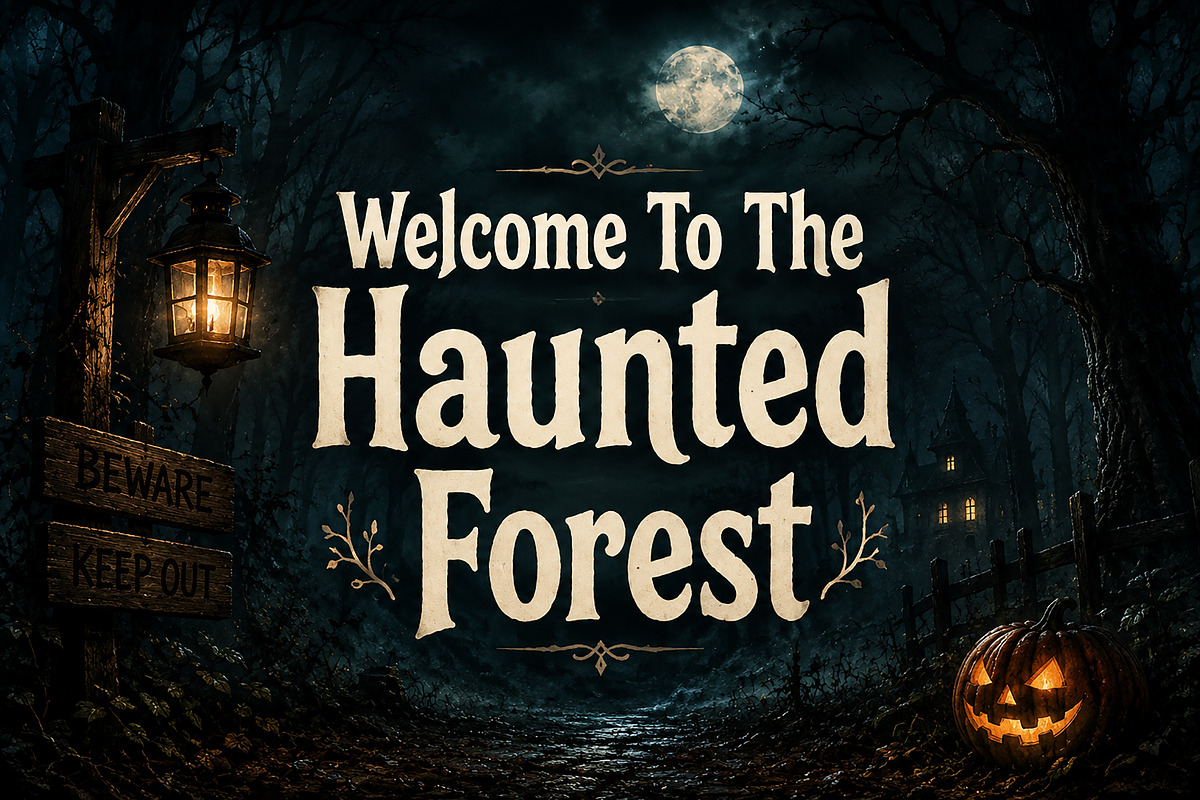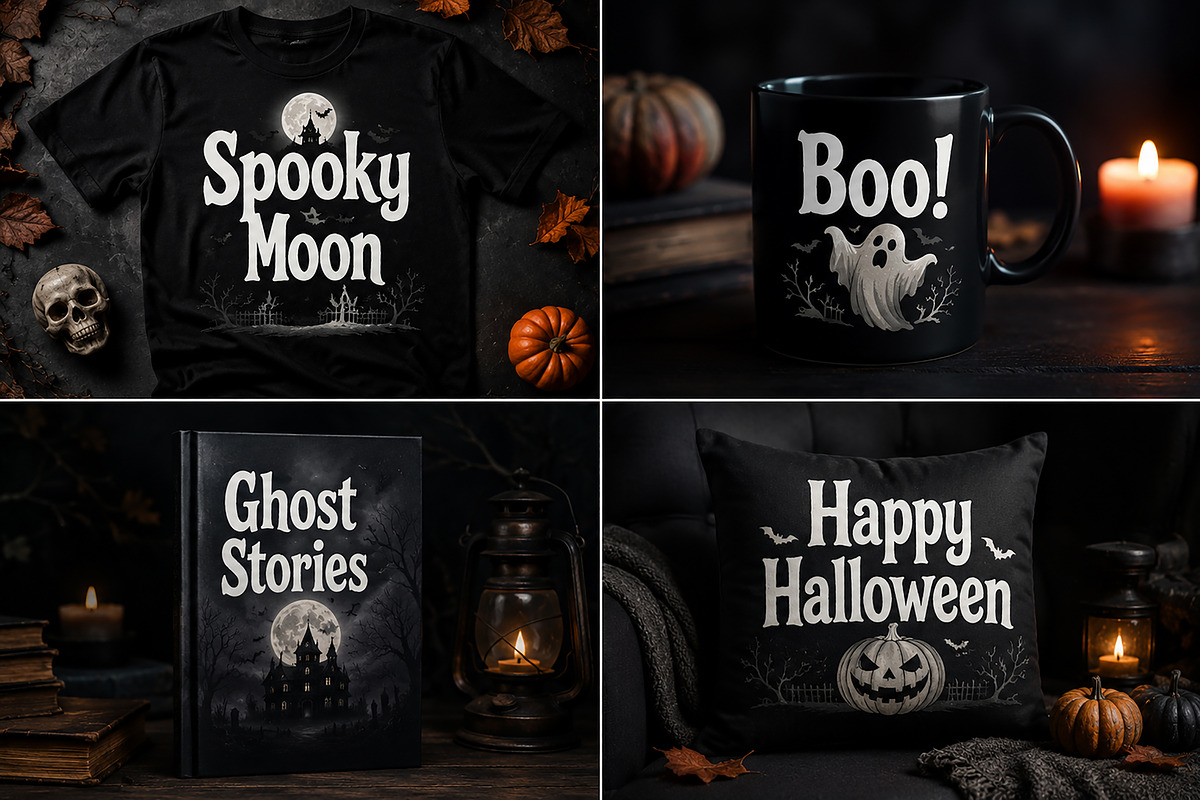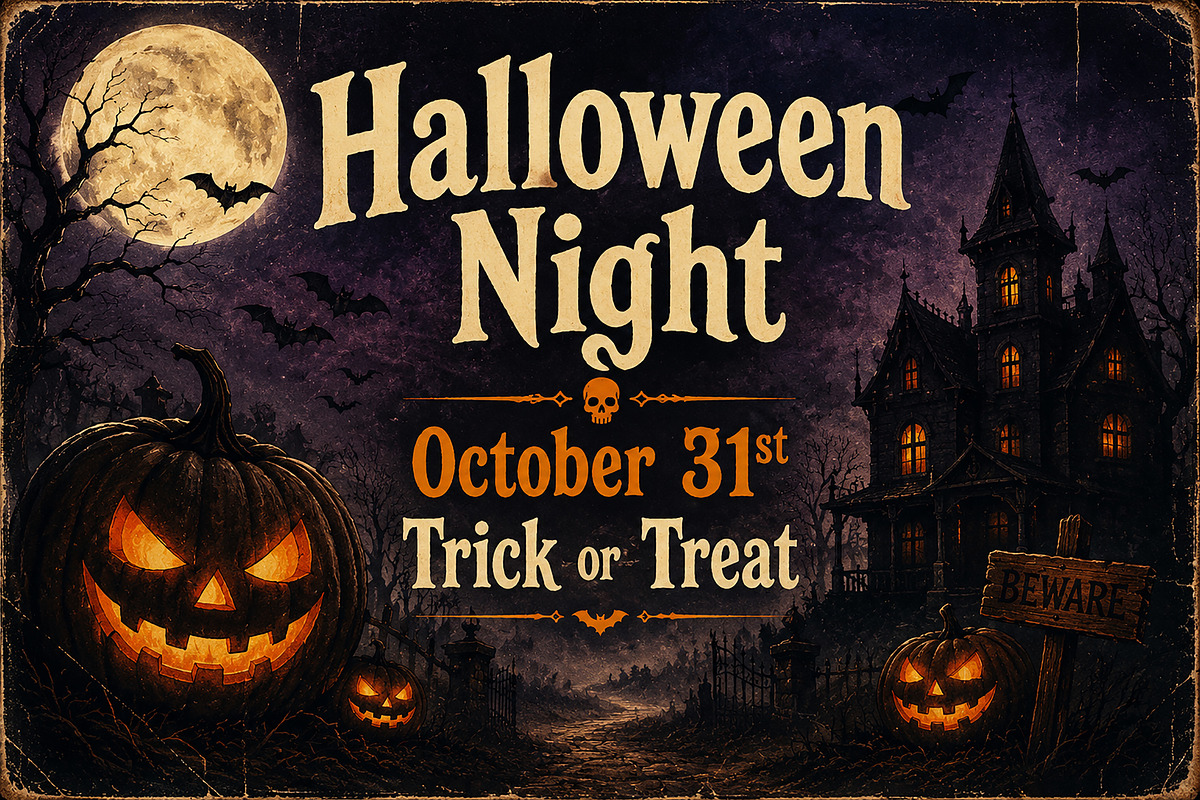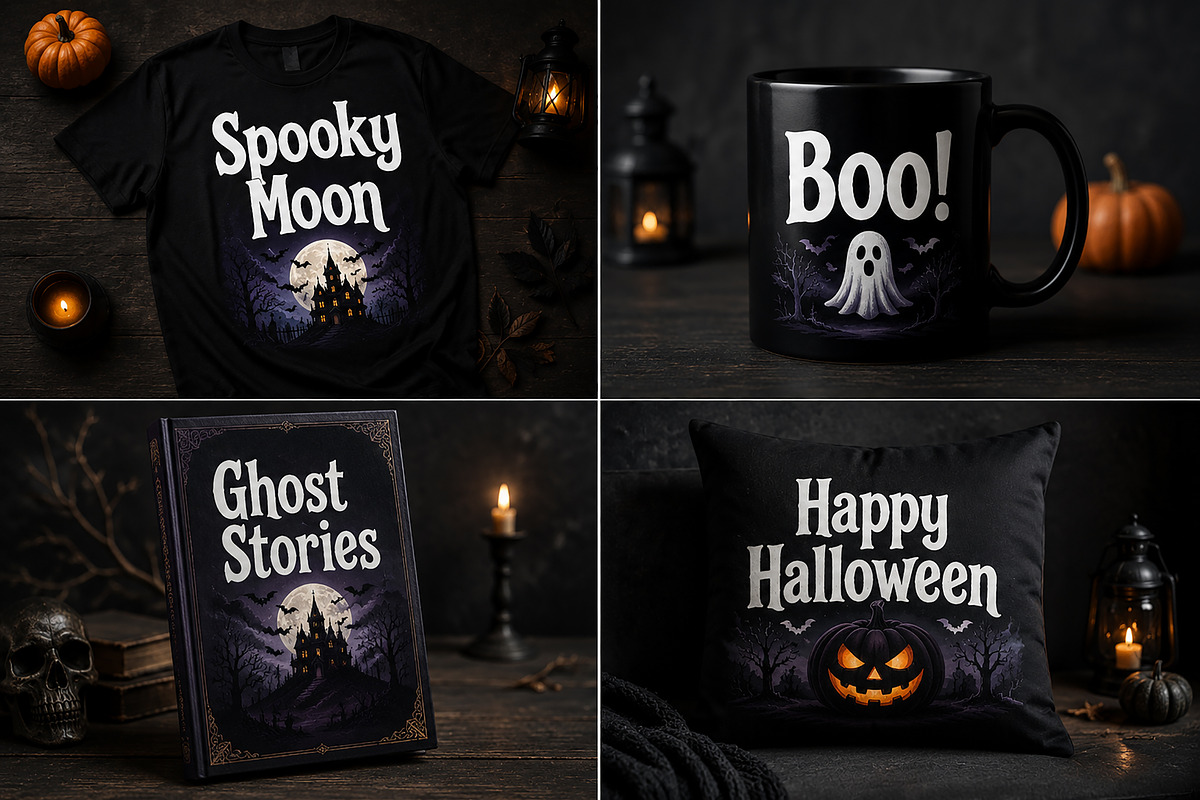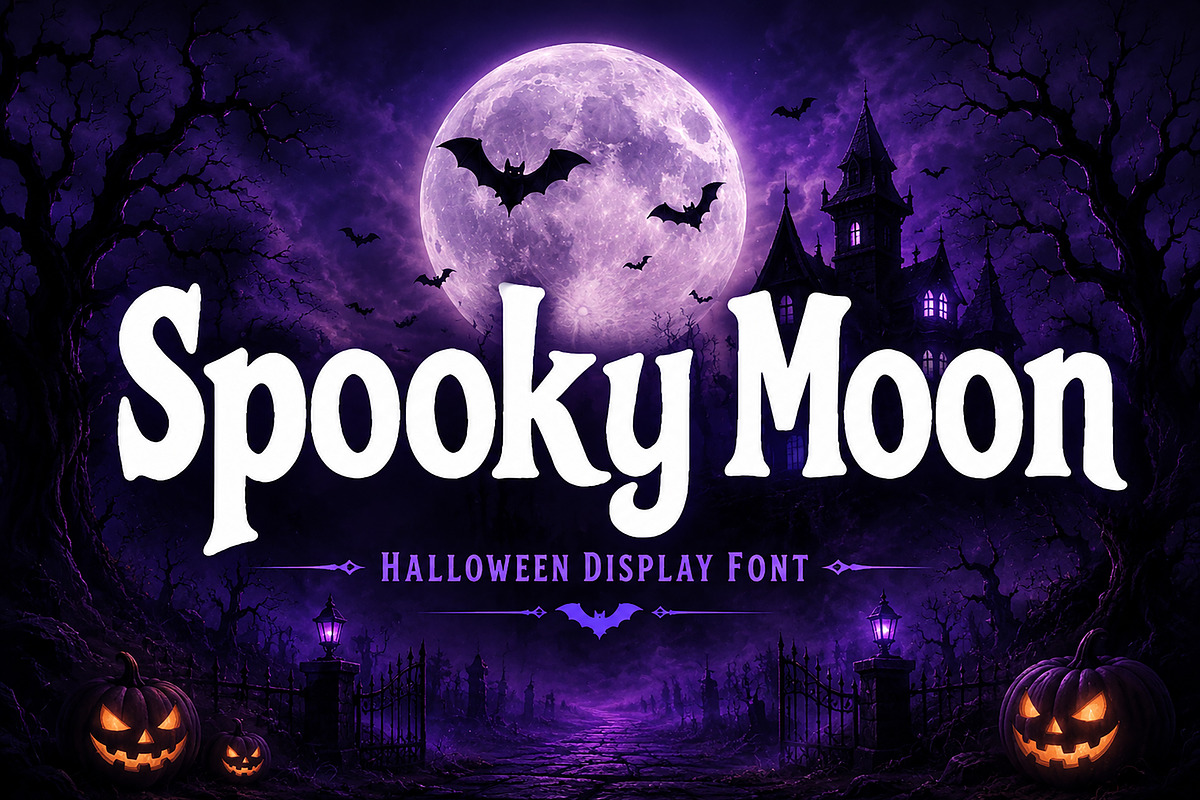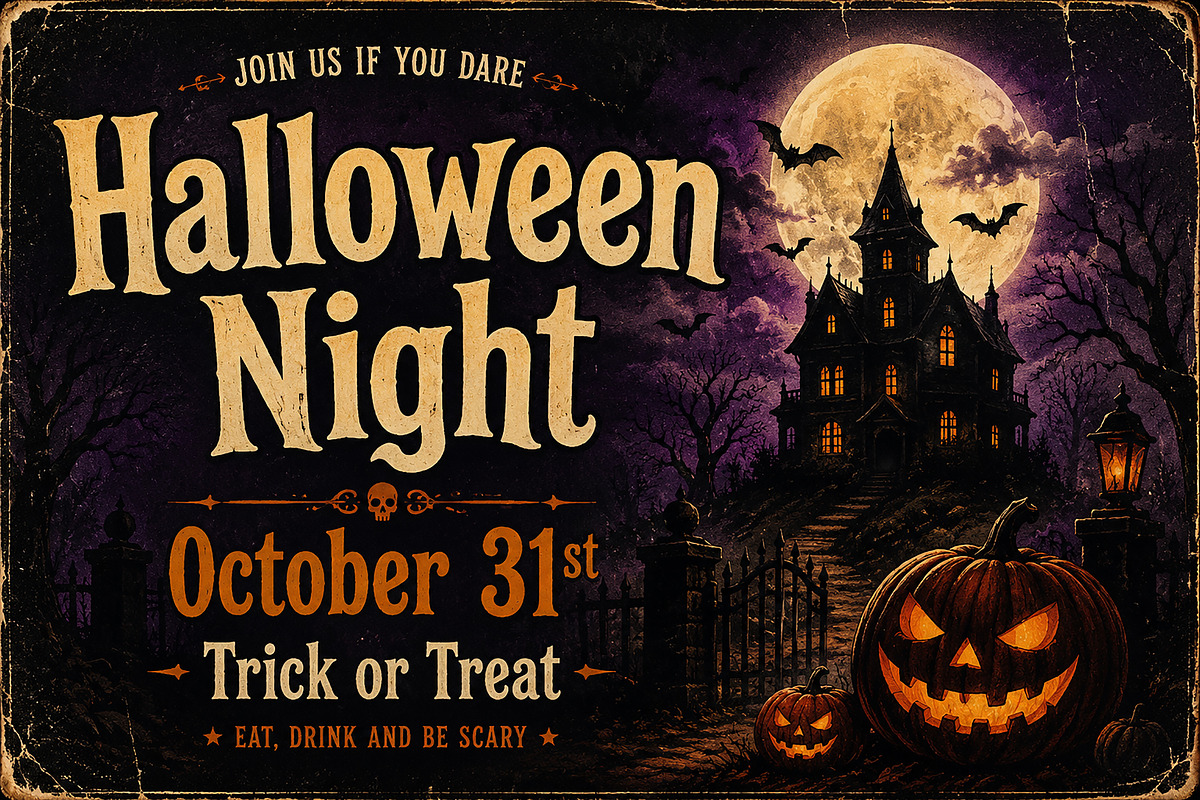
Spooky Moon
Spooky Moon – Halloween Display Font
Spooky Moon is a hauntingly fun Halloween display font designed to bring a mysterious and playful spooky vibe to your creative projects. Featuring bold letterforms, eerie curves, and a handcrafted horror-inspired style, this font is perfect for Halloween-themed designs, party invitations, posters, social media graphics, book covers, packaging, merchandise, and more.
Whether you're creating a haunted event flyer, a spooky quote for Instagram, a horror movie poster, or seasonal branding, Spooky Moon adds the perfect touch of Halloween magic and creepy charm.
Halloween Party Invitations
Horror Movie Posters
Haunted House Promotions
T-Shirt Designs
Mug & Pillow Prints
Branding Projects
Greeting Cards
YouTube Thumbnails
Seasonal Decorations
Cricut & Craft Projects
High-Quality Display Typeface
Bring your spooky ideas to life with Spooky Moon, the perfect Halloween display font for designers, crafters, and creators.